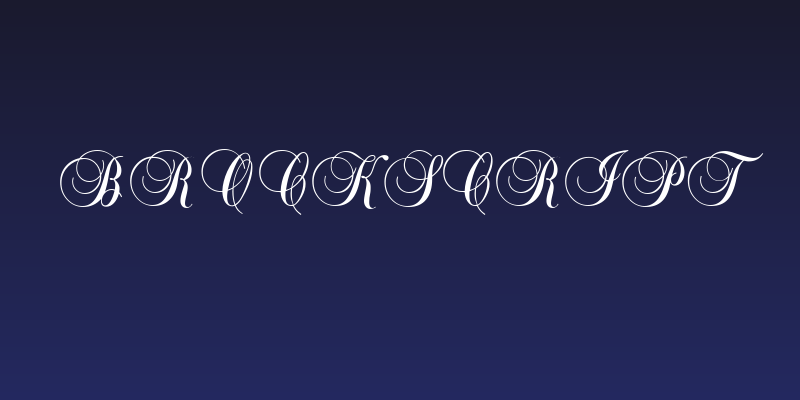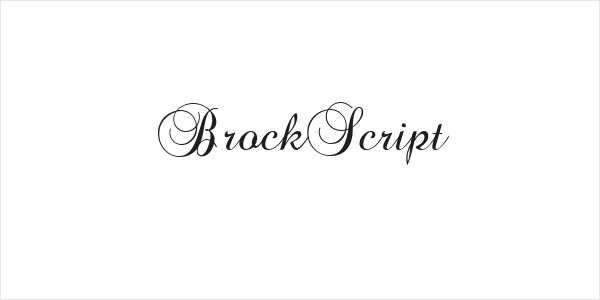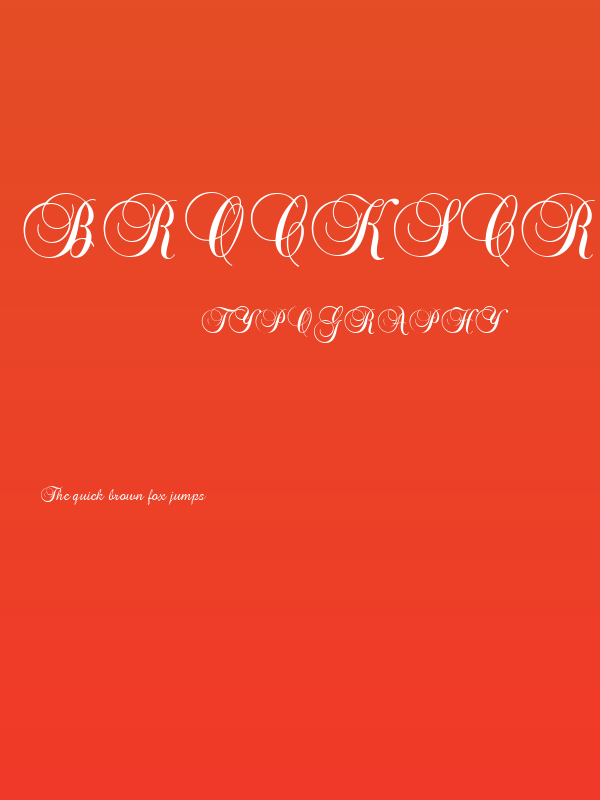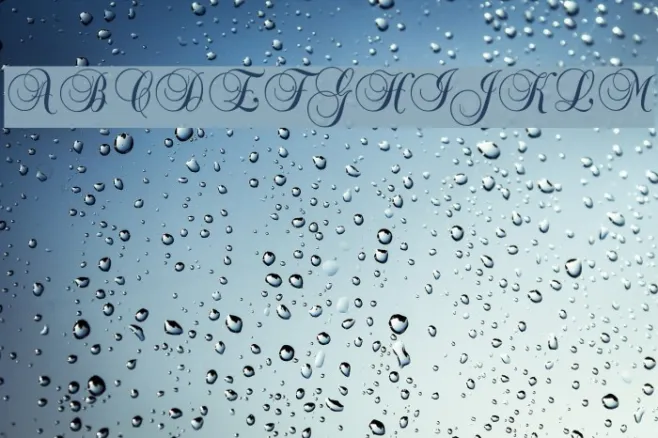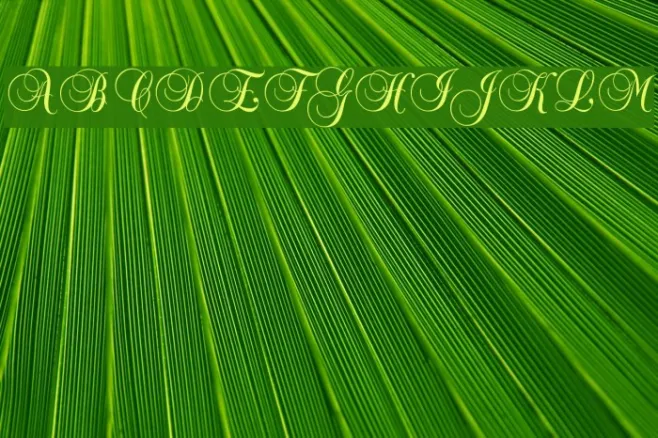
BrockScript Font
BrockScript Description
This elegant script font features intricate, flowing lines and a sophisticated style that evokes a sense of classic charm and refinement. The uppercase letters are adorned with elaborate swirls and loops, creating a sense of movement and grace. The lowercase letters maintain a smooth, cursive flow, complementing the ornate uppercase characters. Numbers and special characters are crafted with the same attention to detail, ensuring consistency throughout the typeface. This font's delicate strokes and artistic flair make it ideal for projects that require a touch of elegance and sophistication.
| Proposed Projects | Ideal for wedding invitations, elegant branding, luxury product packaging, and decorative signage. |